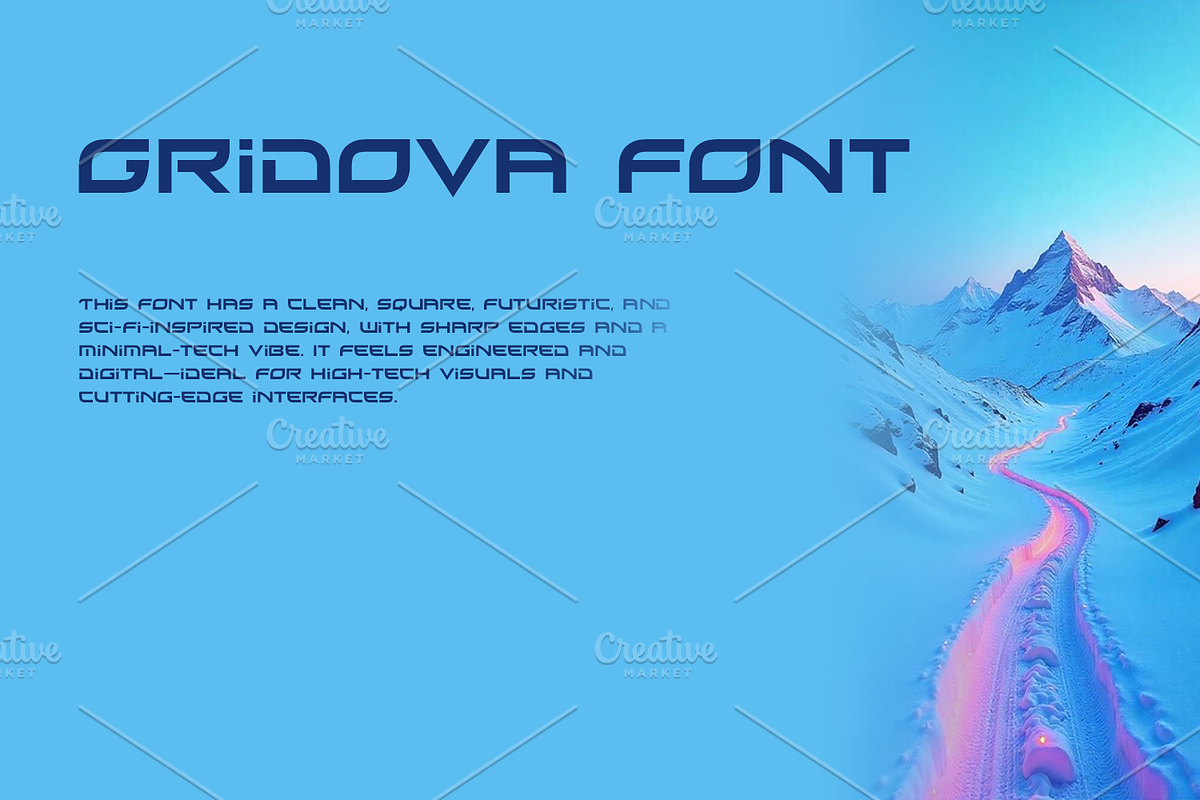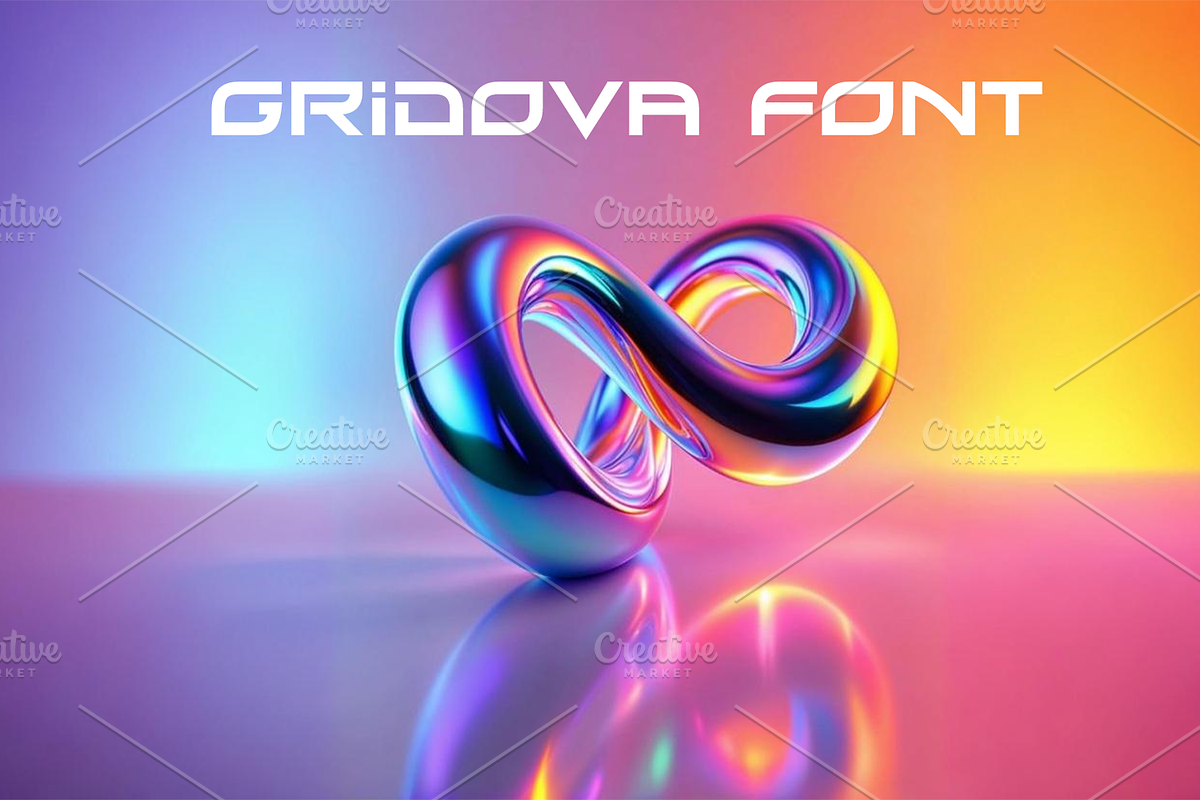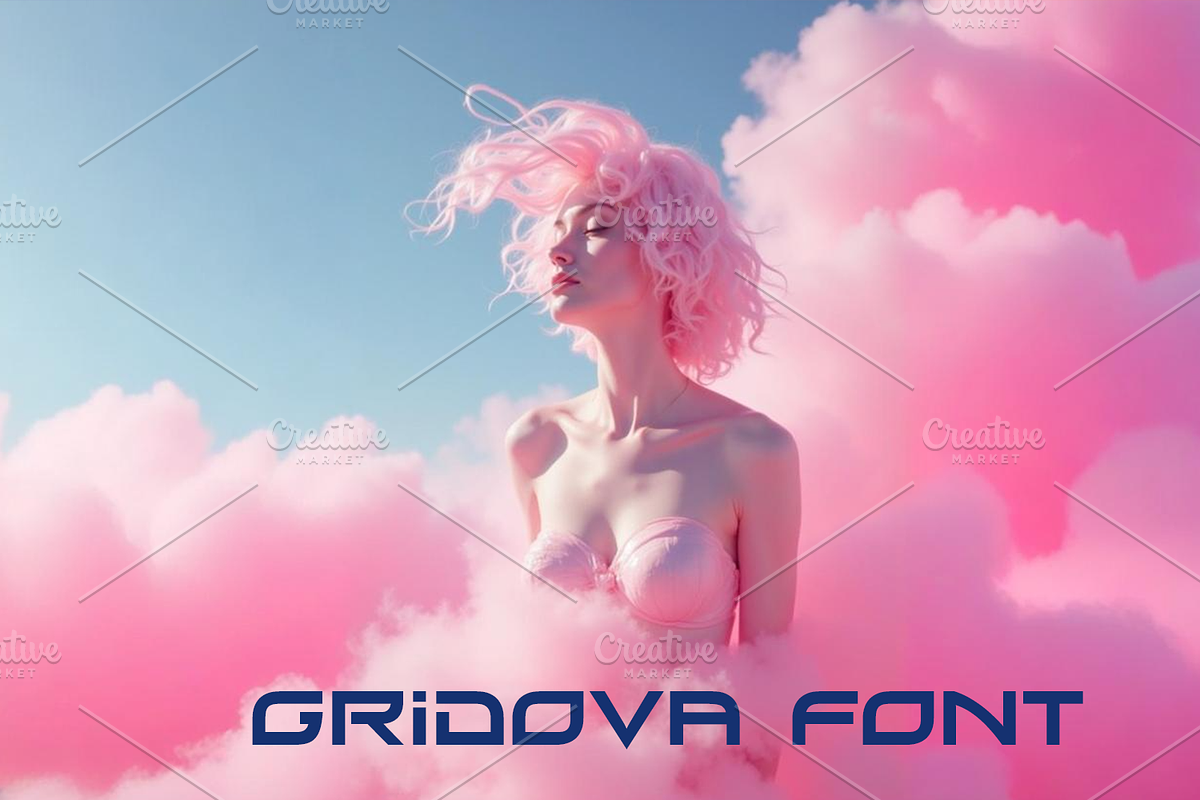
Meet Gridova – the font for a future written in code.
Its angular structure and clean form bring digital clarity to your branding.
Perfect for tech, AI, and next-gen products that demand precision and presence.
Speak the language of tomorrow – with Gridova